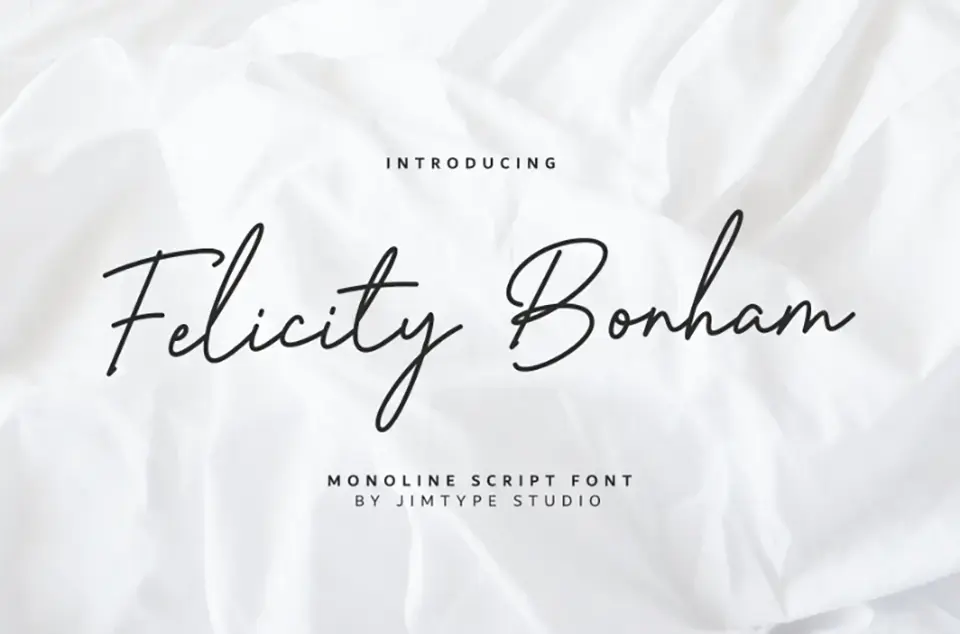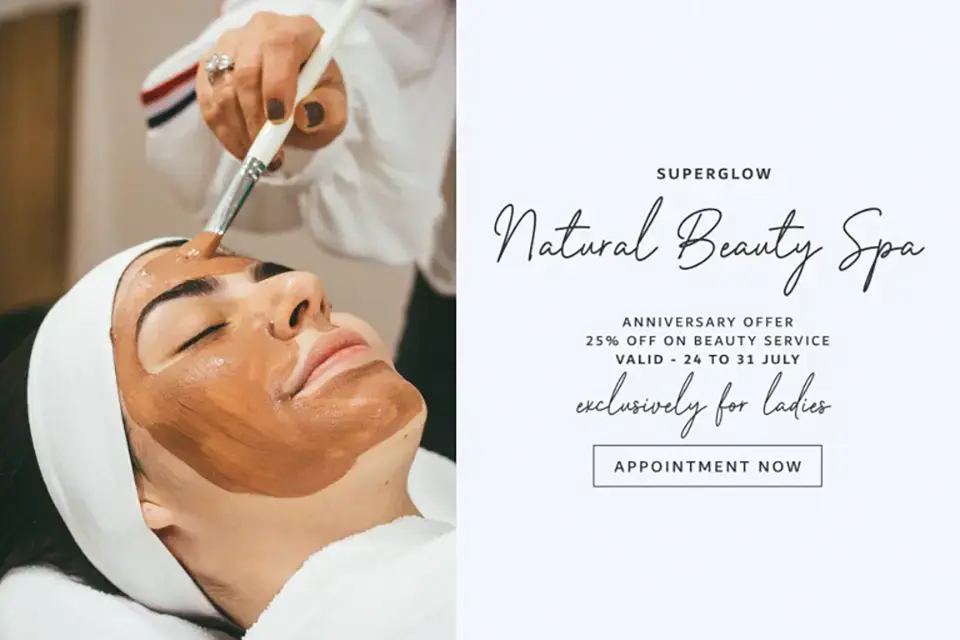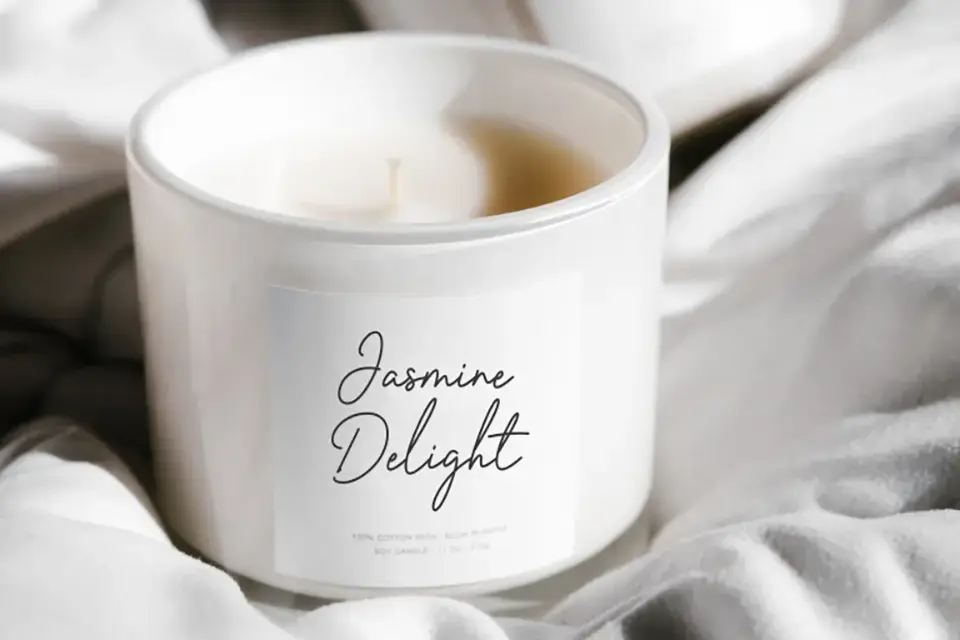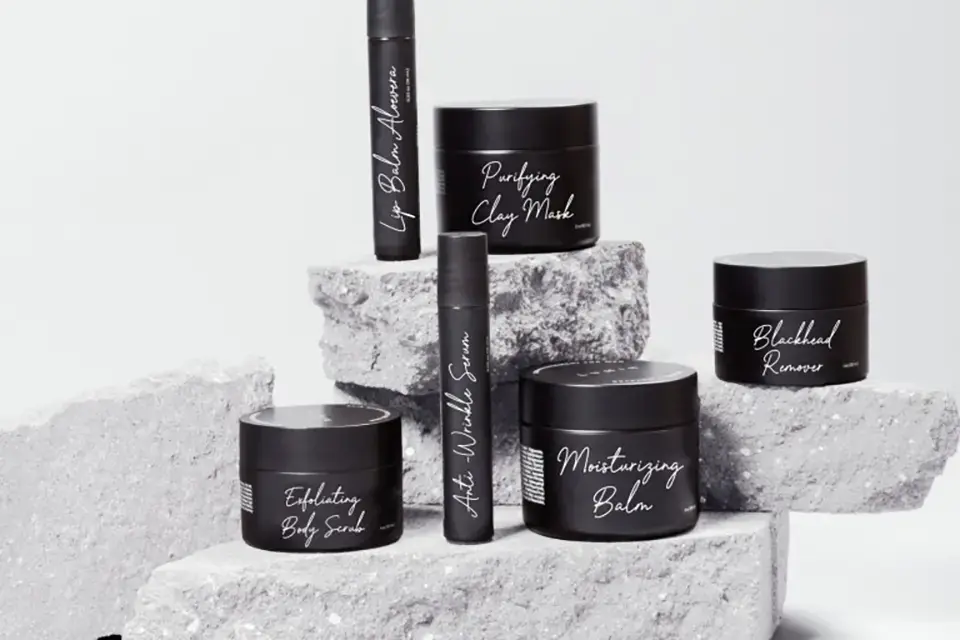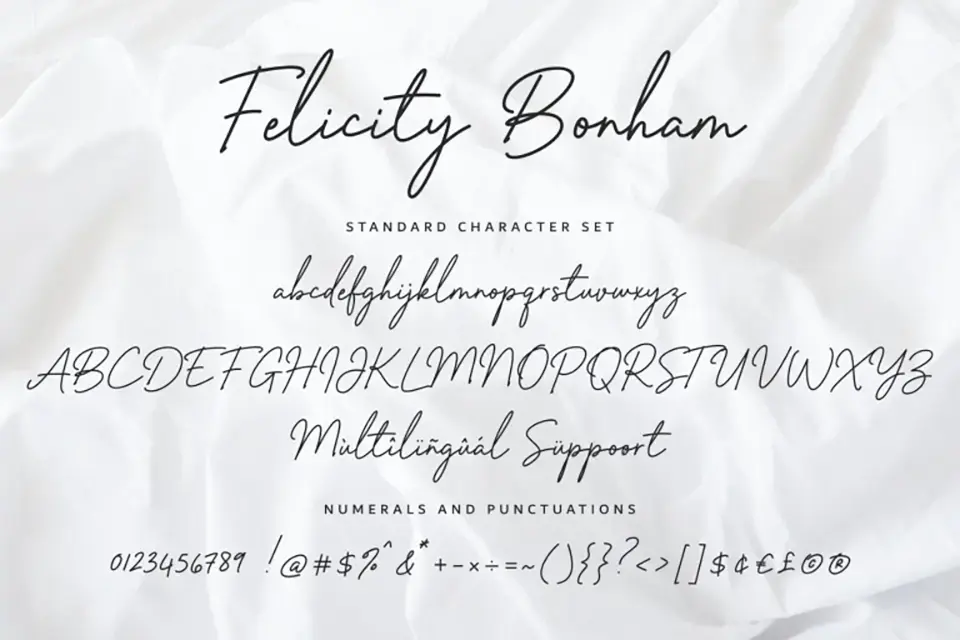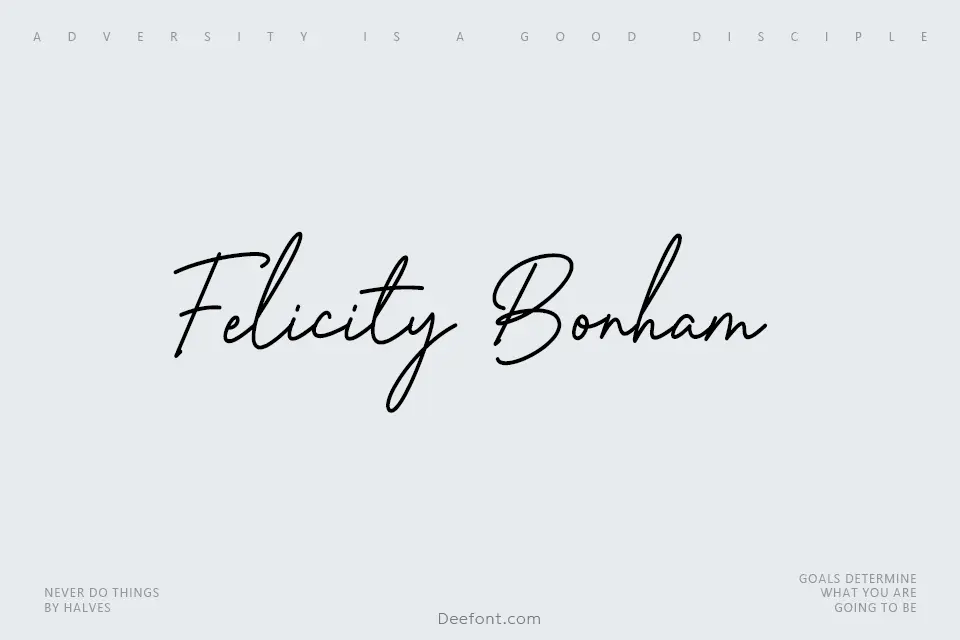
Felicity Bonham Font
Felicity Bonham is a sophisticated monoline signature font that masterfully blends the elegance of formal penmanship with the warmth of handwritten script. Its light, fluid strokes create an effortless sense of grace, featuring consistent line weight throughout for a refined, contemporary aesthetic. The connected cursive letterforms exude both intimacy and formality, making it exceptionally versatile for premium design applications. Ideal for branding, product packaging, wedding stationery, logos, greeting cards, social media headers, magazine covers, and luxury labeling, this font adds an artisanal, personalized touch that elevates any project with timeless sophistication and professional polish.